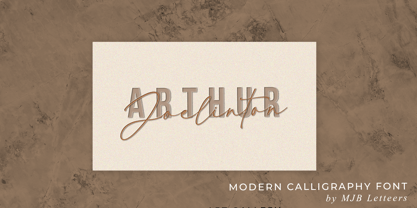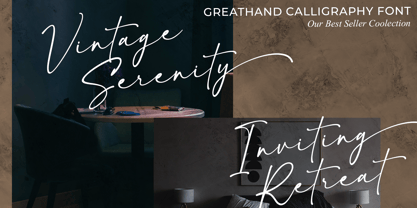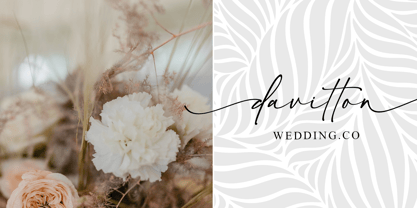
Greathand
by MJB Letters
The Greathand Font Family was designed by Muhammad Mujibulloh and published by MJB Letters. Greathand contains 1 styles.
“Greathand” is a modern calligraphy font that combines elegance and versatility, making it a popular choice for various design applications. This font stands out for its unique features and capabilities, making it a valuable asset for designers and creatives alike.
Greathand is a versatile font suitable for a wide range of design projects. Its modern calligraphy style adds a touch of sophistication and personality to any text it’s applied to. This font is commonly used for branding, invitations, and typography art.